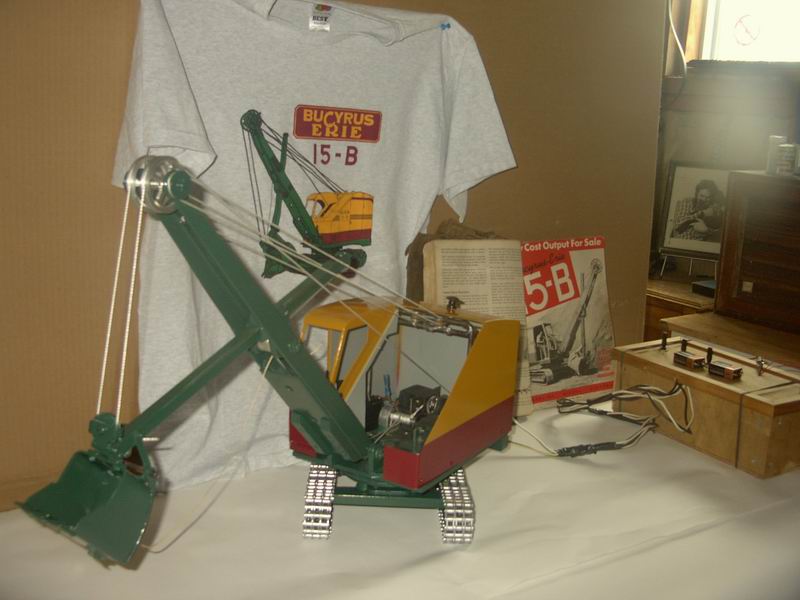
I am helping an old timer with a scale model on a Bucyrus-Erie 15-B excavator.He completely builds these kinds of things from scratch, no directions, just an old circa 1947 operator manual.
I am making the decals. I'd like to know what the two fonts are here. I realize they may have been modified. Anything close will do in this case.
Tough to tell, however I'd build the "BUCRUS" starting with Copperplate Gothic Heavy and some node editing. The "ERIE" could be done the same using Bookman Extra Bold or something along those lines. Now you've got my curiosity up. Think I'll do some searching on that myself.
"Erie" kinda looks like it's from Atkinson.
Actually Bucyrus looks like an Atkinson Egyptian in a bolder style.
Ran it through our font recog program, but no match. If you were going to do a bunch, think I'd have Vector Doctor do me a vector job on it.
Here's a demo using FHA Round Block and Egyptian Bold, which are Atkinson alphabets available thru The Fontry.
Close but no cigar!
I'm making only 5 of these for this one item. I'm just doing it for the guy. He helps me out. Plus he will take this to shows and let me put my logo on He rebuilds antique engines etc. He's a very crafty fella. Since my last post he came back with some more stuff. A t-shirt and the whole machine. I had to take some pics of it cause it is so cool. This thing is completely hand made ( not from a kit ). Parts are all machined or made from something that just worked. It is fully operational. w/servo motors. Home made remote control box. Tracks are made from timing chain from 1943 FORD engine.
Also have better pic of type faces from t-shirt.
That's close on the bucyrus Jill.I can work that "C" to look like a hook. The erie doesn't work though. You can se from my last post a better image.....Thanx